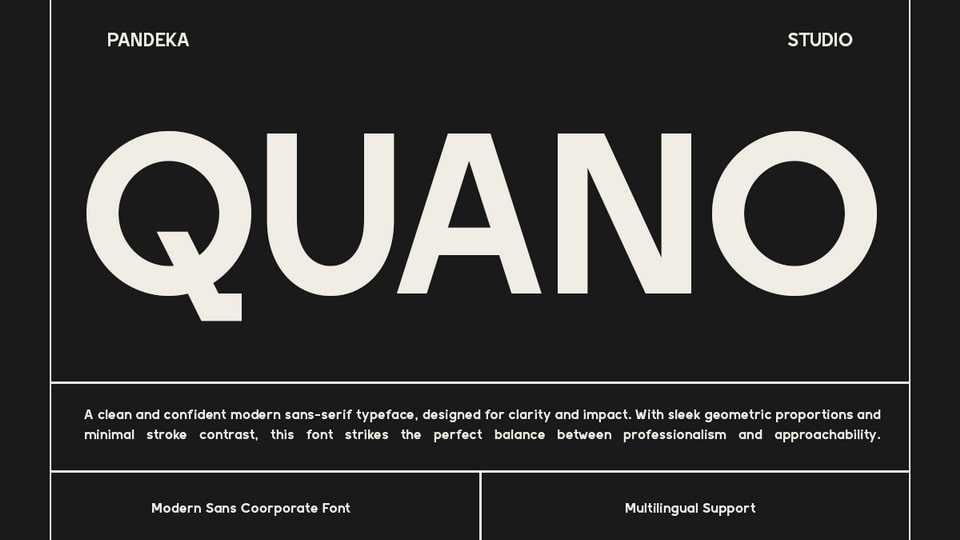
Download Quano font, a clean and contemporary sans serif typeface designed for clarity, precision, and timeless appeal. With its balanced proportions, geometric construction, and sleek letterforms.